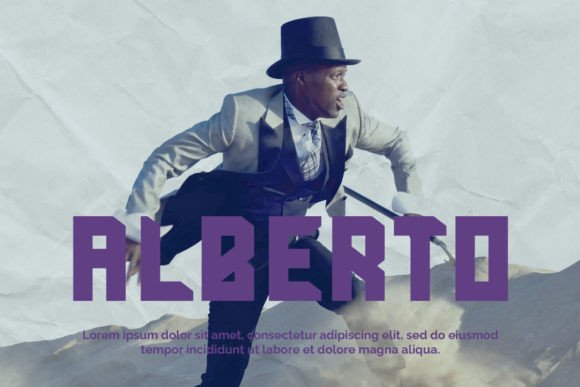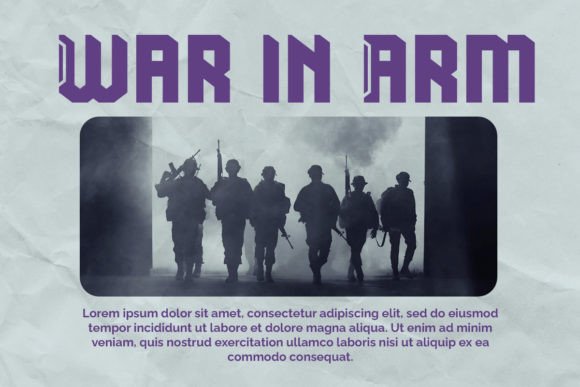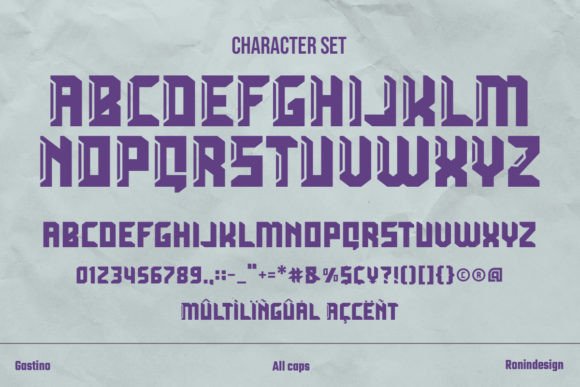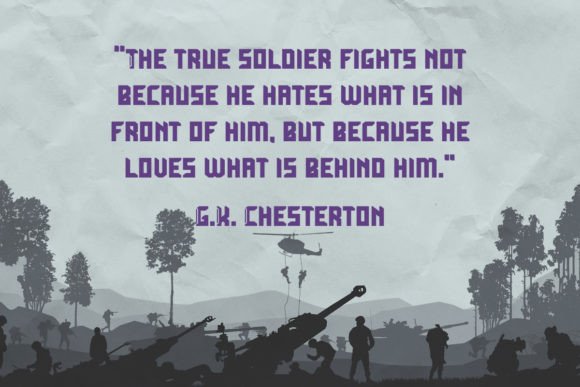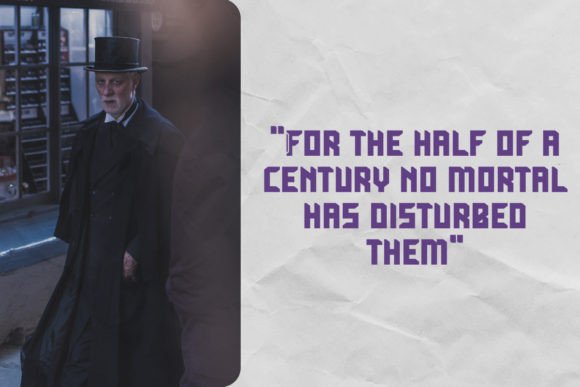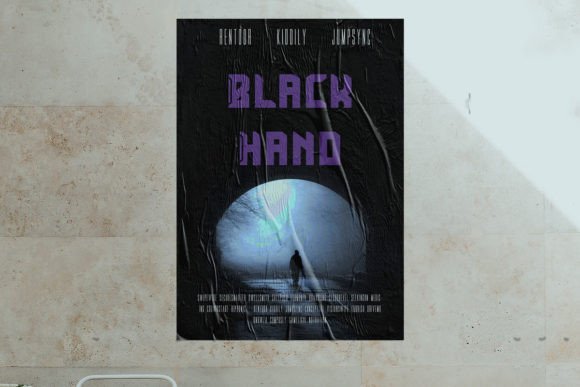
Introduction to Gastino Font
As designers, we’ve all been there – staring at a blank canvas, waiting for that spark of creativity to ignite our next project. And sometimes, all it takes is the right font to bring it all together. That’s where Gastino Font comes in – a casual and unique display font that’s sure to elevate your design game.
Gastino Font is more than just a design resource – it’s a high-quality tool that can add a touch of sophistication to any creative project. With its versatility and modern aesthetic, this font is perfect for poster design, logotype design, advertising, and so much more. And the best part? You can download it for free, complete with a transparent background that makes it easy to integrate into any design.
Gastino Font
- High-quality design resource ideal for creative projects and presentations.
- Unique, elegant design with a transparent background, perfect for overlaying on images or videos.
- Available in a single weight, making it easy to use for headings and titles.
- Includes 256 glyphs, making it suitable for a wide range of languages and characters.
- Perfect for designers and artists looking for a stylish and sophisticated font for their creative project.
Honest Review: Gastino Font
As a designer, I’m always on the lookout for high-quality design resources that can elevate my creative projects. Recently, I had the chance to work with the Gastino Font, and I must say, it’s been a pleasant surprise.
- ✨ The font’s modern and sleek design makes it perfect for minimalist and clean layouts.
- ✨ The transparent background allows for seamless integration with any design element.
However, as with any font, there are some limitations:
- ⚠️ The font may not be ideal for projects requiring a wide range of font weights and styles.
- ⚠️ The design may not be suitable for projects with a vintage or distressed aesthetic.
Overall, I’m impressed with the Gastino Font. Its simplicity and versatility make it an excellent addition to any designer’s toolkit. Whether you’re working on a creative project or just looking for a reliable font, the Gastino Font is definitely worth checking out.
Gastino Font
Tips for Getting the Most Out of Gastino Font
To get the most out of Gastino Font, consider the following tips:
- Use Gastino Font in conjunction with other design elements to create a cohesive look.
- Experiment with different font sizes and colors to add visual interest.
- Use Gastino Font in creative projects, such as social media graphics, flyers, and brochures.
Common Use Cases for Gastino Font
The Gastino Font